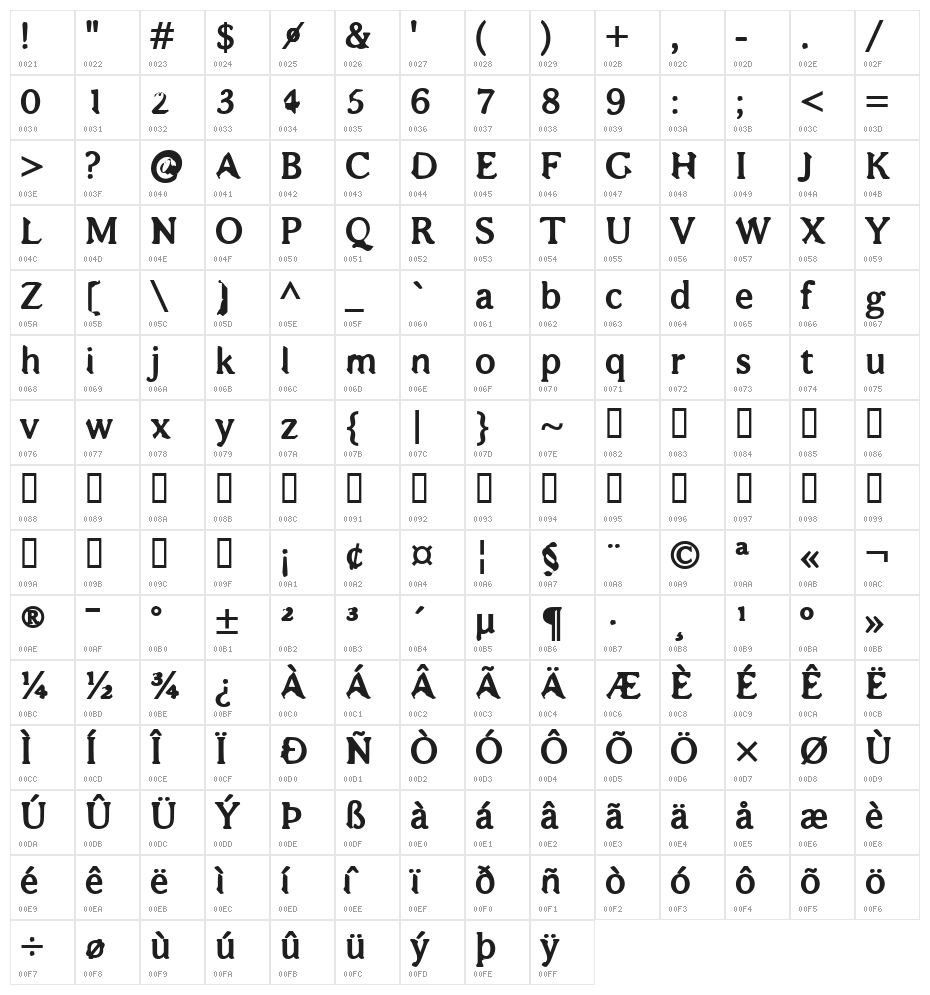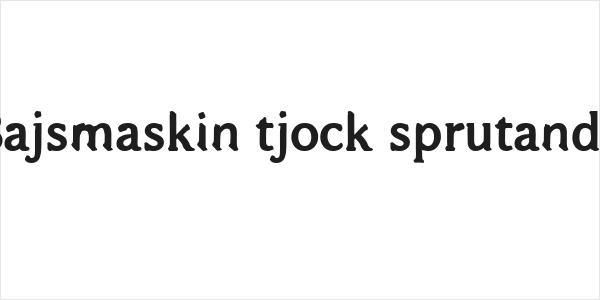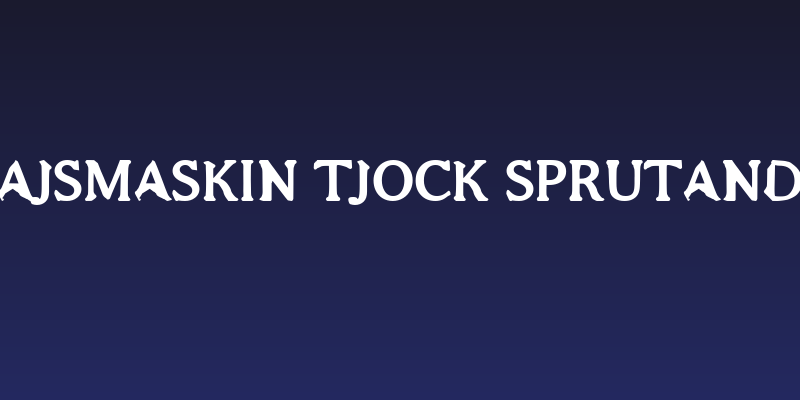
Bajsmaskin tjock sprutande Font
Bajsmaskin tjock sprutande Description
This font features a bold and robust design with a strong presence. The characters exhibit a slight curvature and a subtle serif style, giving it a classic yet modern feel. The uppercase letters are well-proportioned, while the lowercase letters maintain a consistent flow. Numbers are clear and easily distinguishable, making them suitable for various applications. The special characters are distinct and complement the overall aesthetic. This font is versatile, suitable for both digital and print media, and can be used to convey a sense of tradition and reliability.
| Use Case | Headlines, Logos, Editorial design |
| Proposed Projects | Ideal for branding, editorial design, packaging, and signage. |